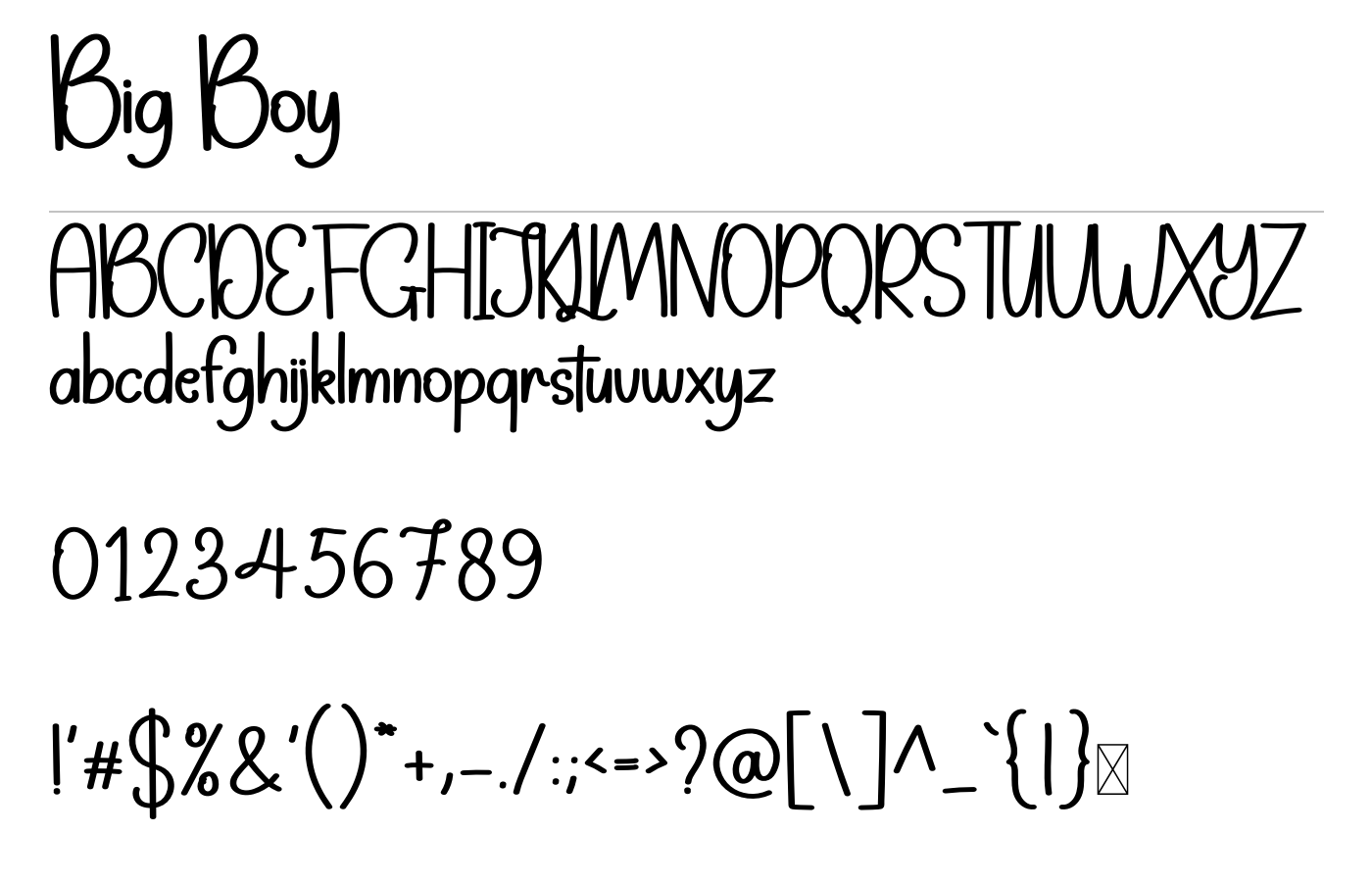
Big Boy is a playful, tall handwritten font with a casual and friendly vibe, featuring thin strokes and quirky, elongated letterforms that create an airy and approachable feel. Its uneven lines and distinctive character shapes make it perfect for fun, informal designs such as children's books, casual branding, posters, and social media graphics where a personal, lively touch is needed.
Big Boy Font
About Big Boy Font